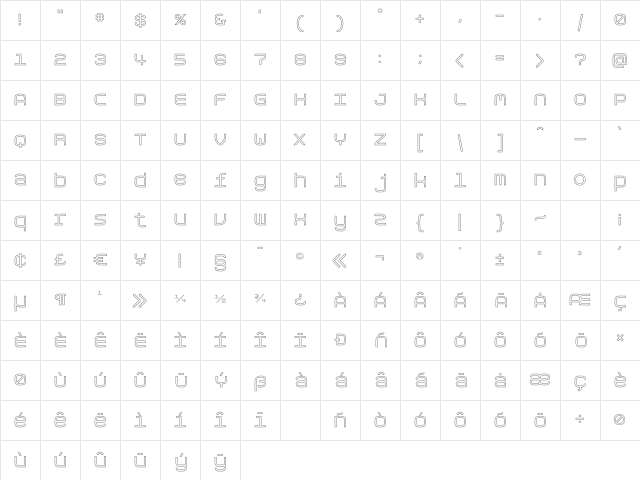
Aspirin-Refill Irregular
Style: Irregular
Design Context for Aspirin-Refill
Aspirin-Refill is a composed and adaptable typeface that performs quietly and consistently across a wide range of design contexts.